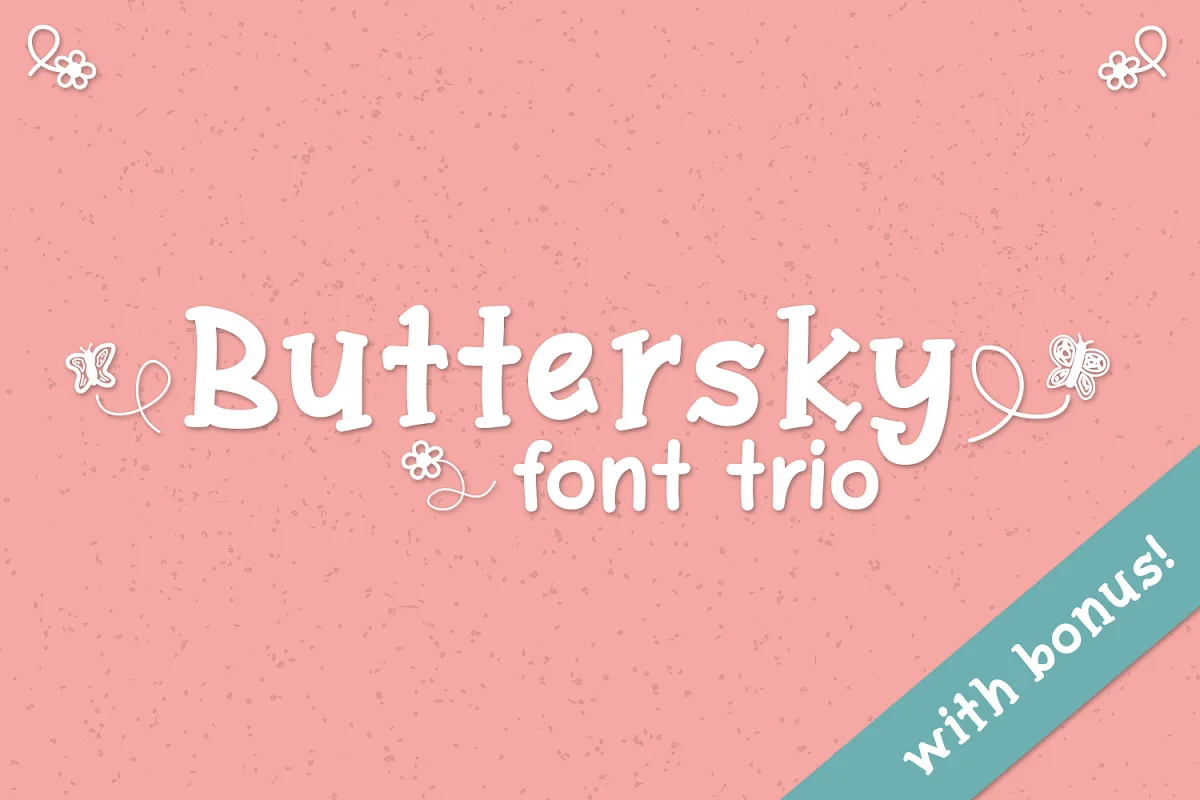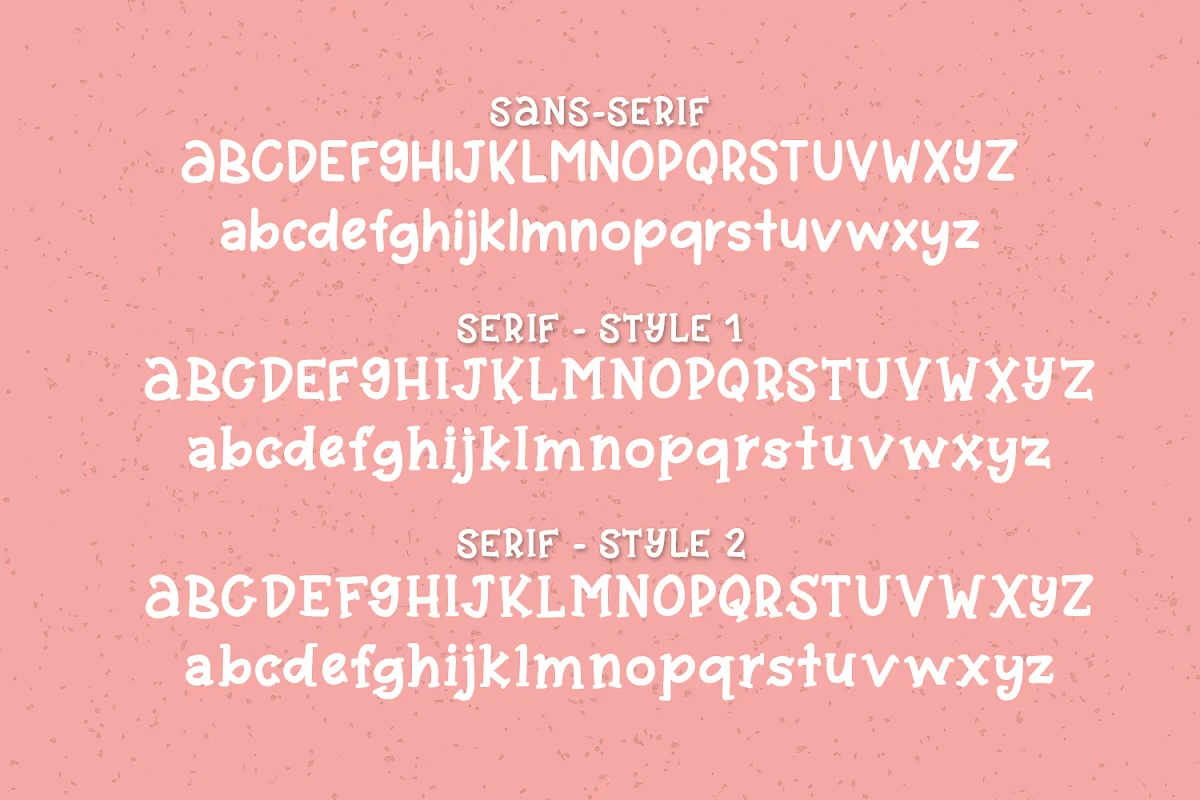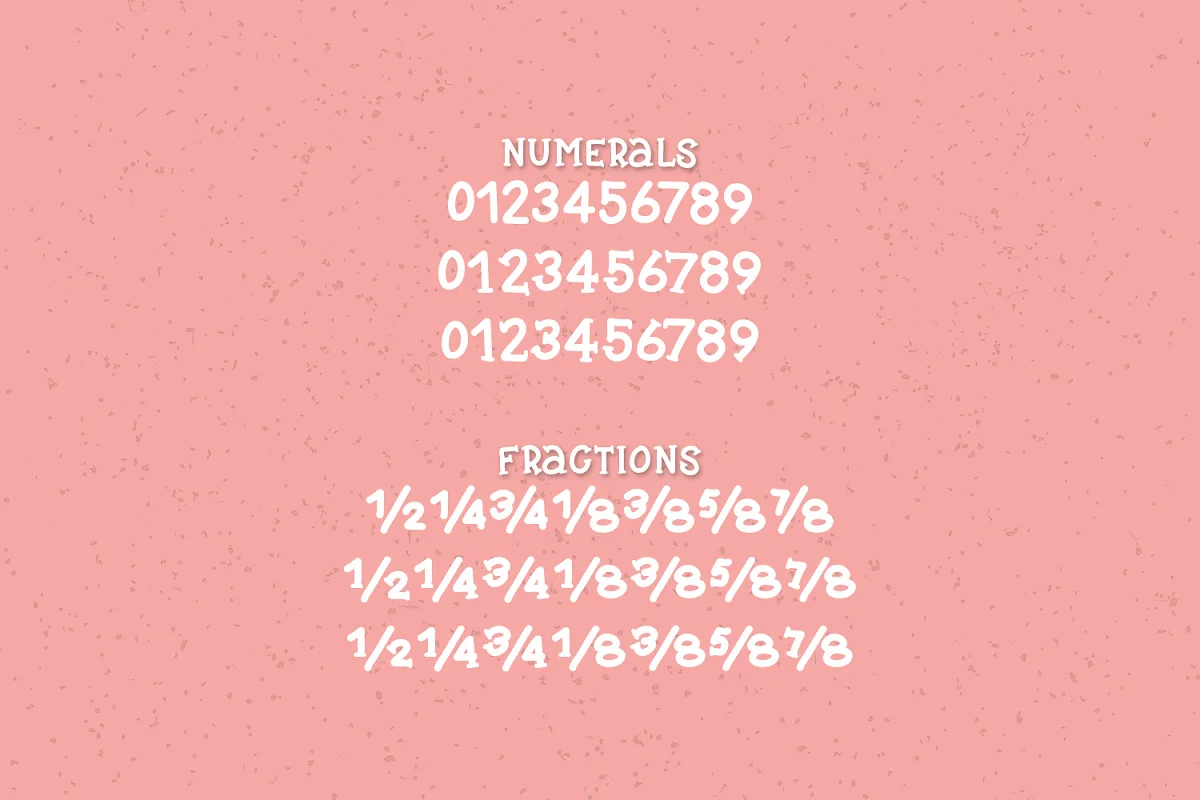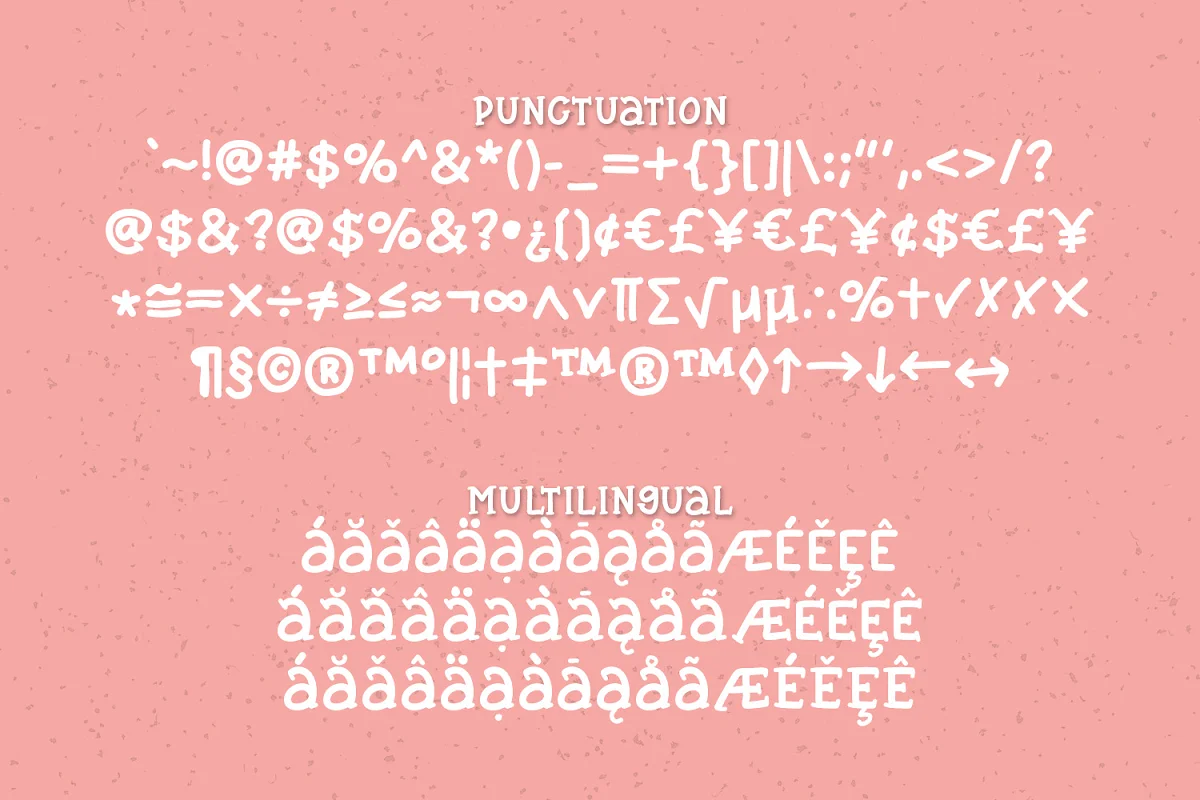
About the Buttersky Font
Introducing Buttersky! A fun font trio made up of a sans-serif and two different styles of serif, all designed to work well together!
Also includes a bonus ornaments font file, with fun and cute doodles to help get you started on your next project!